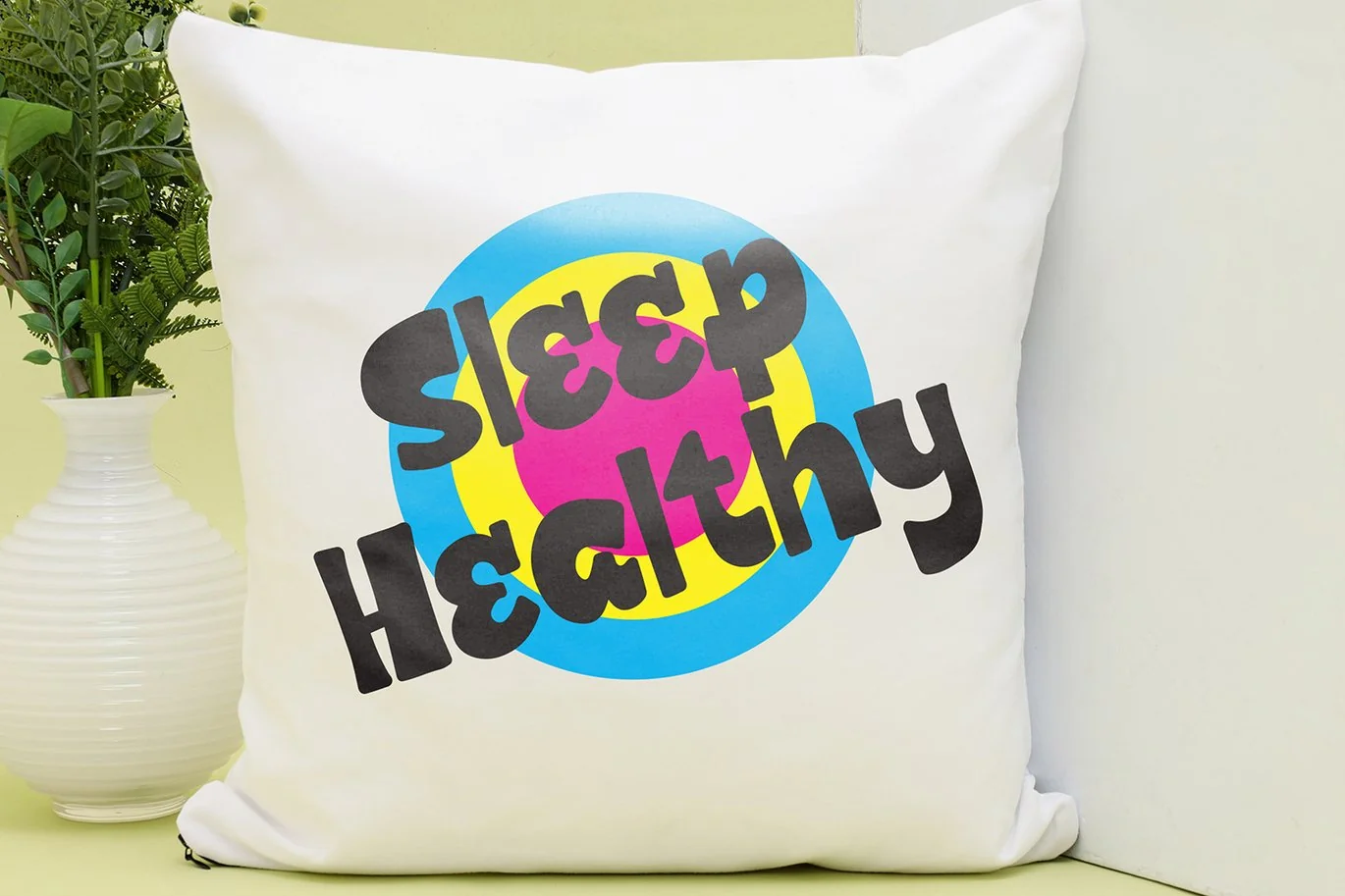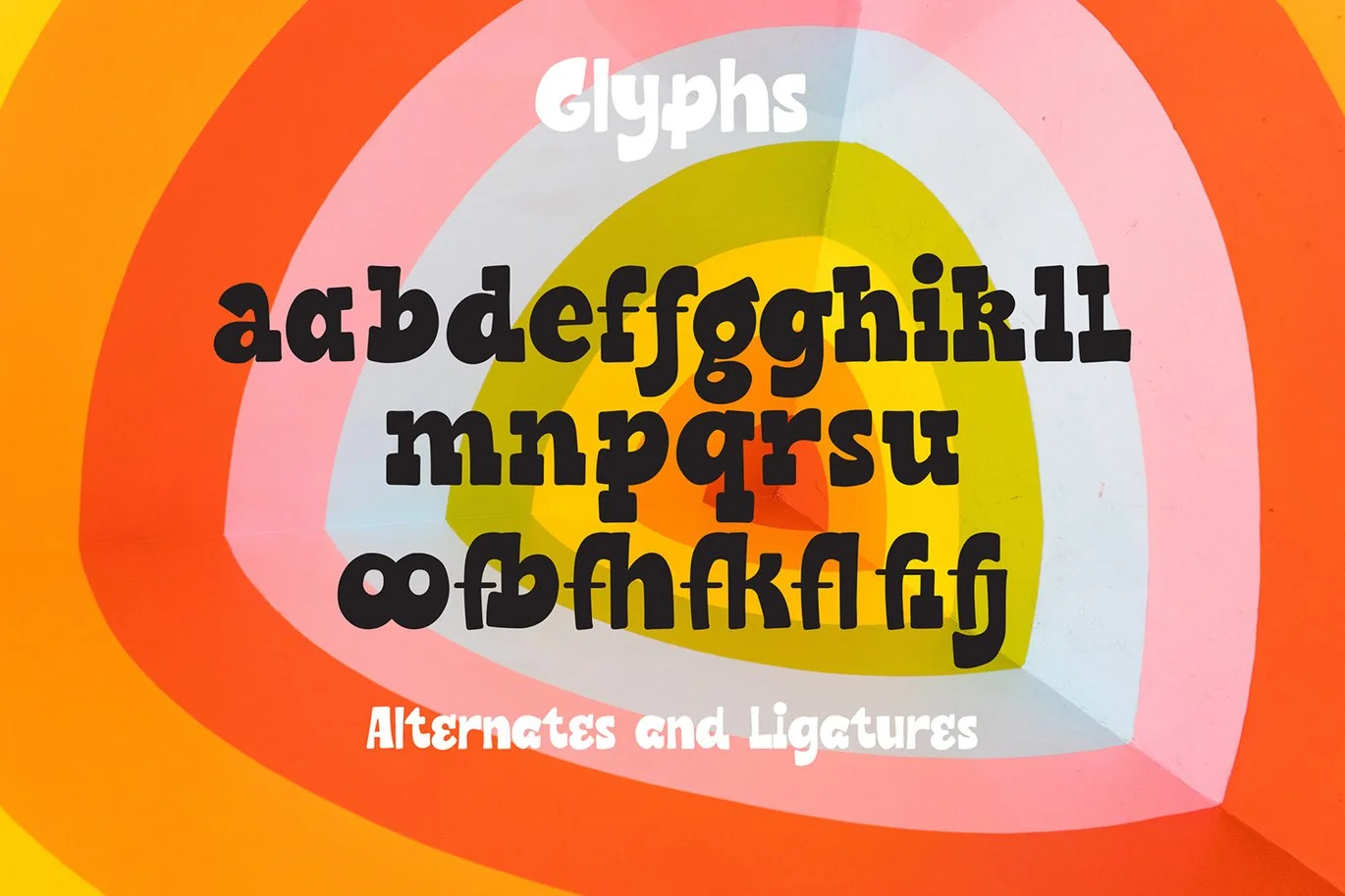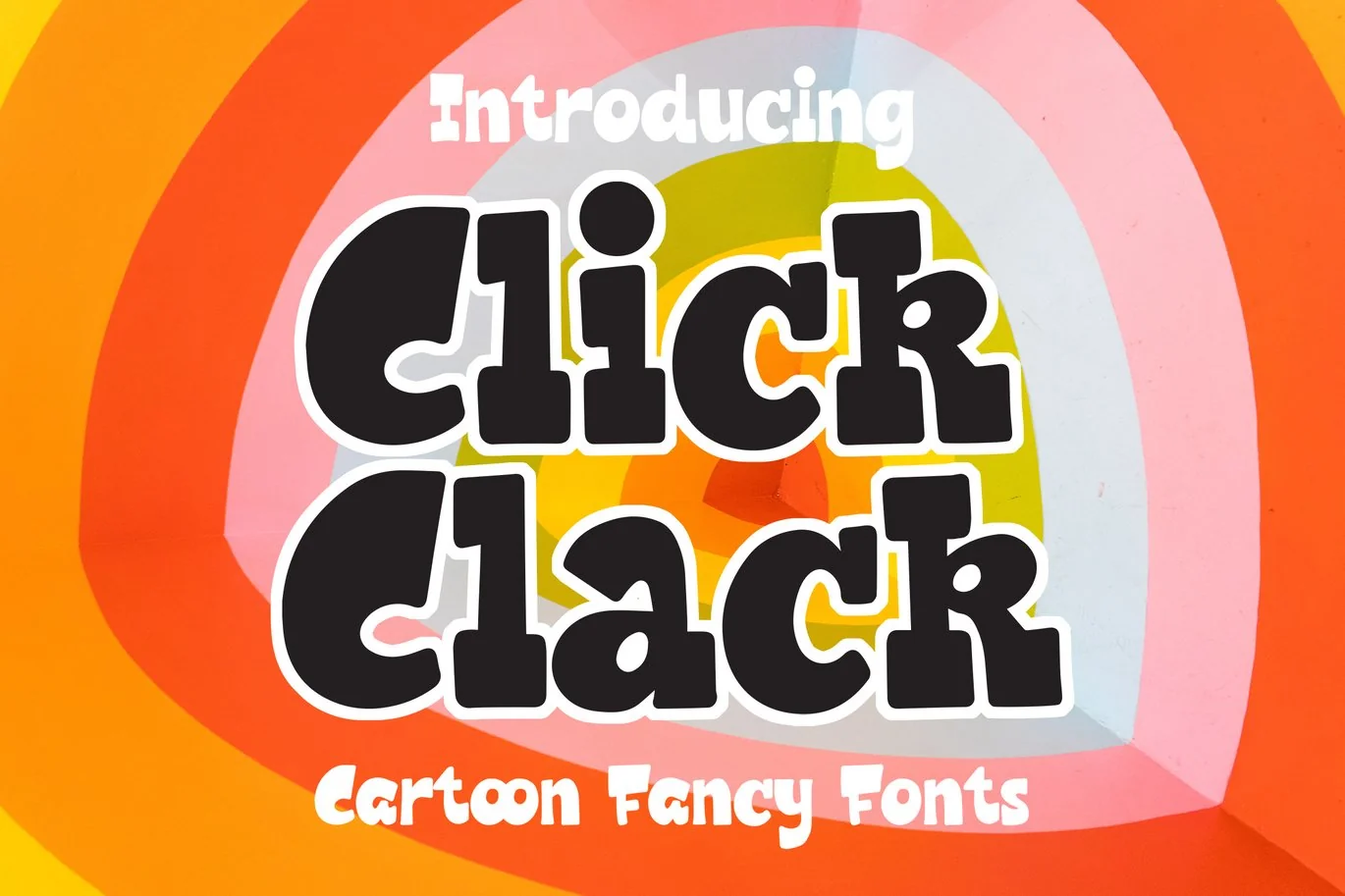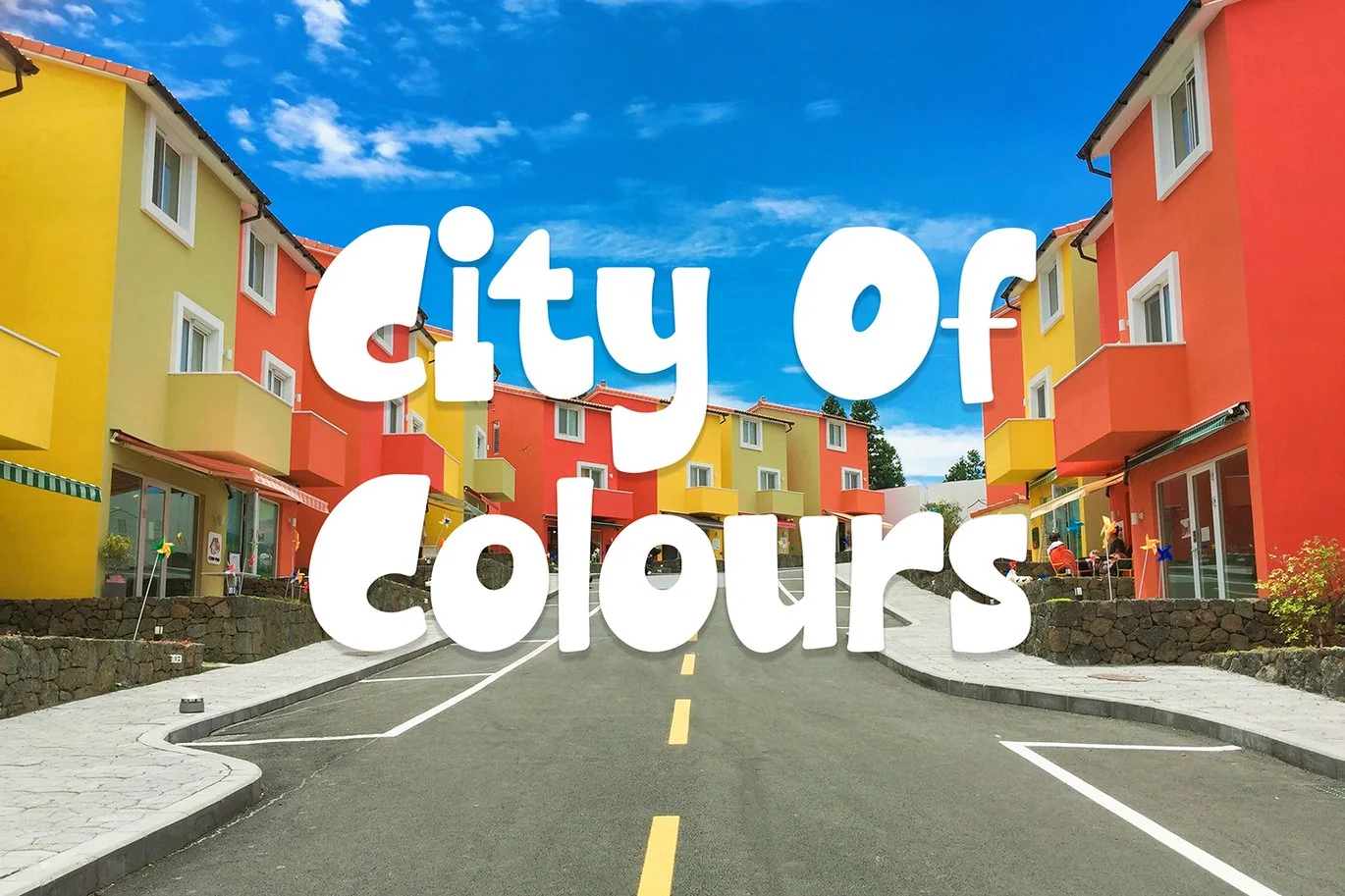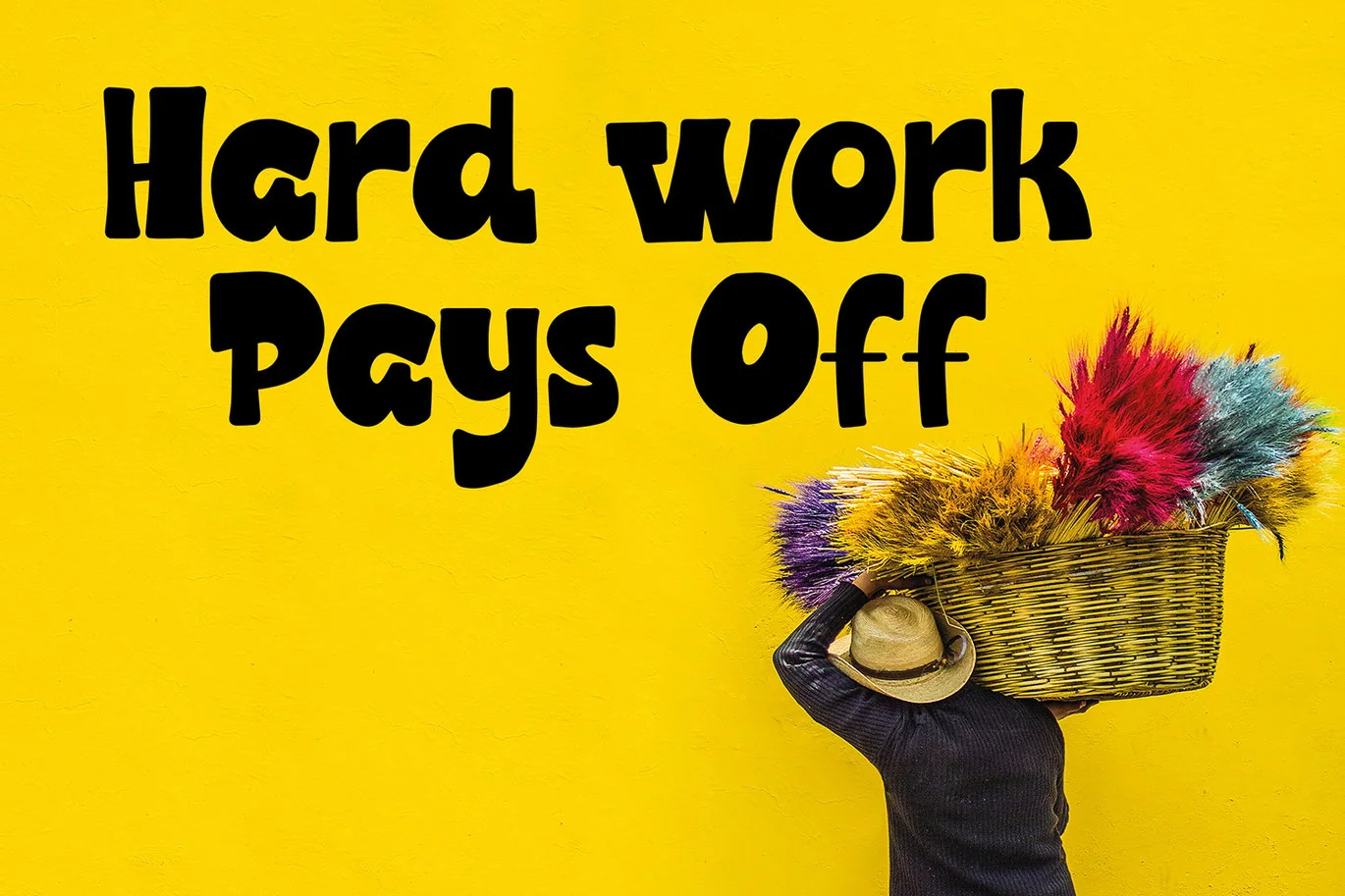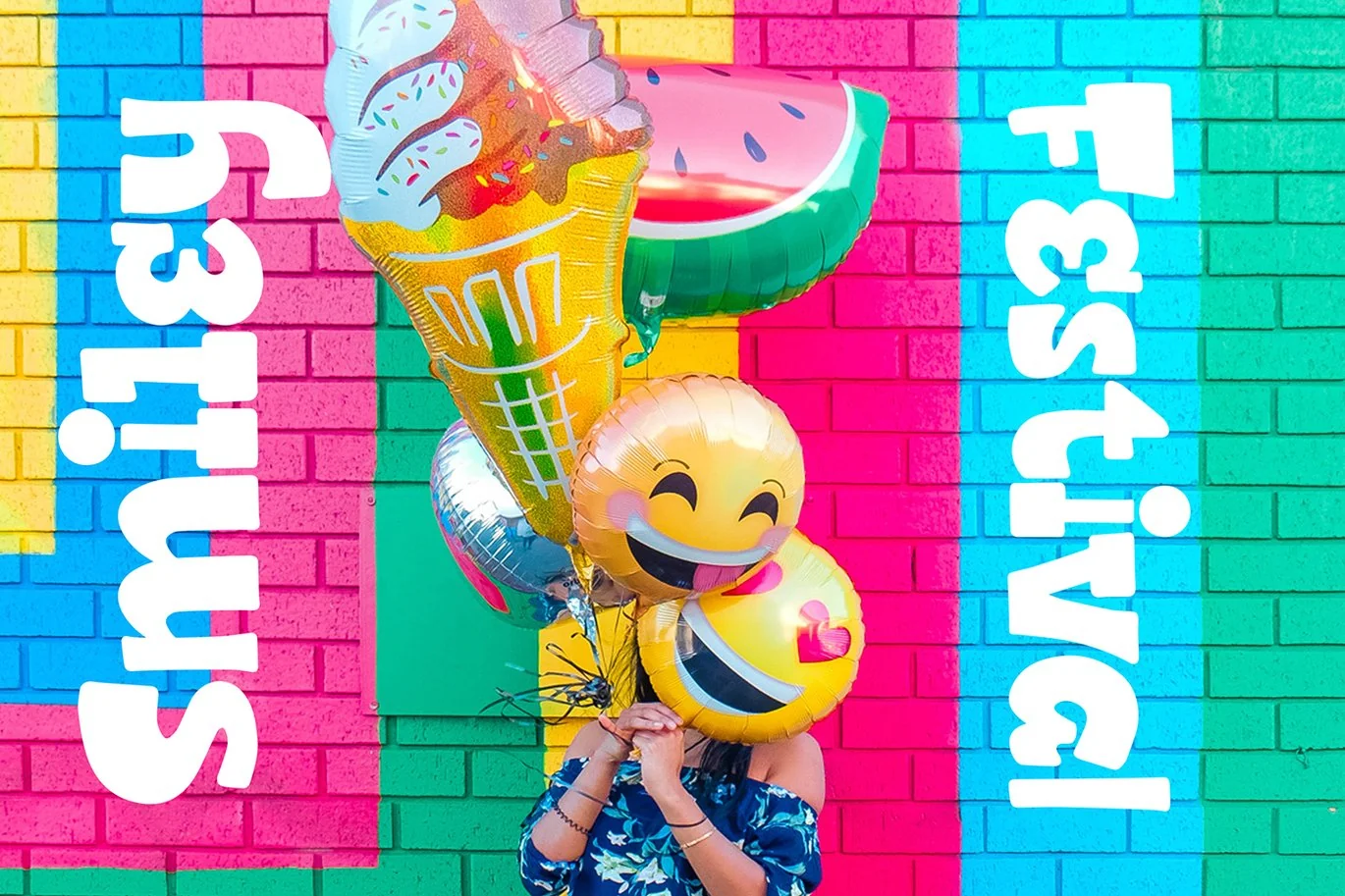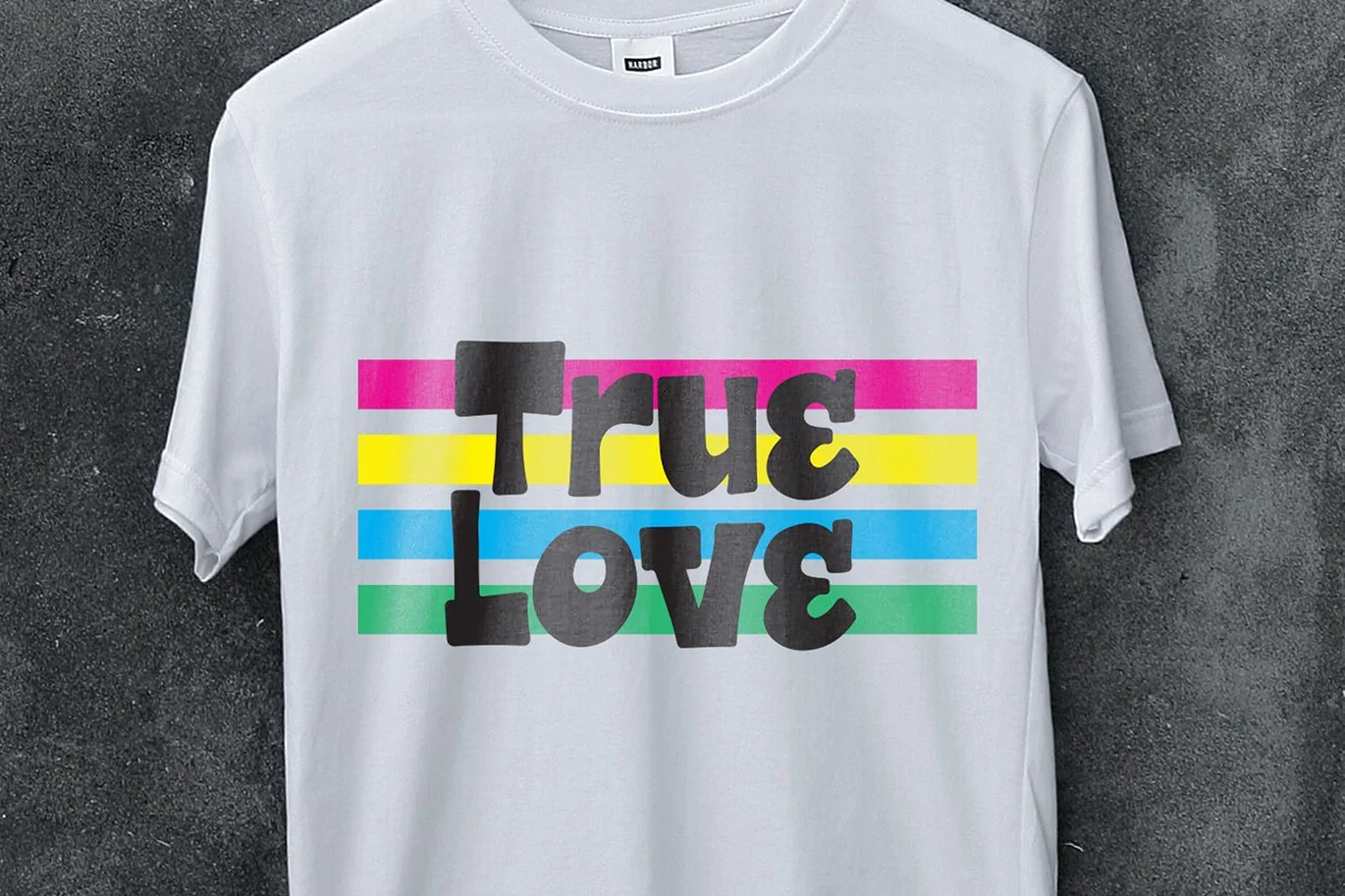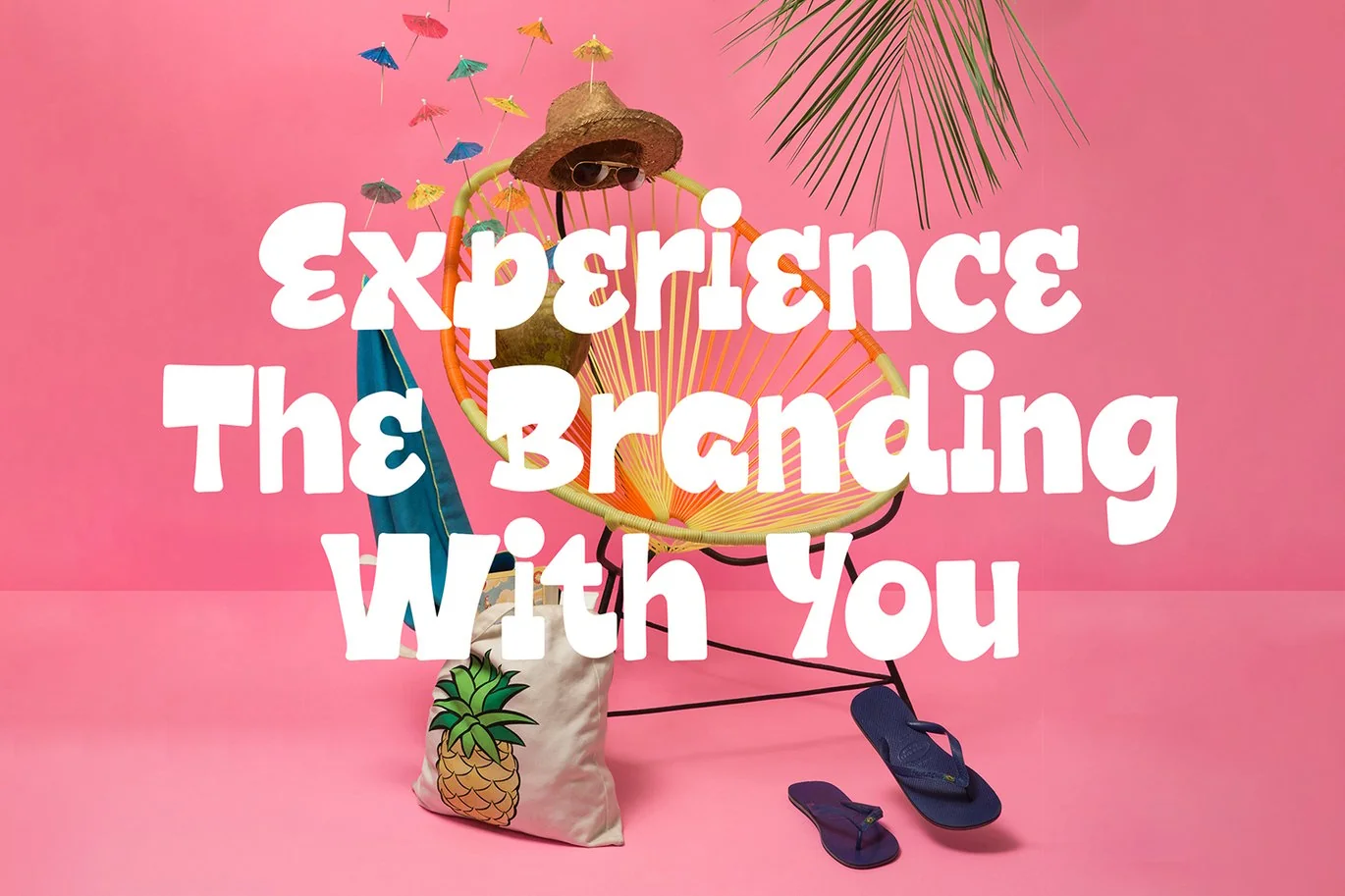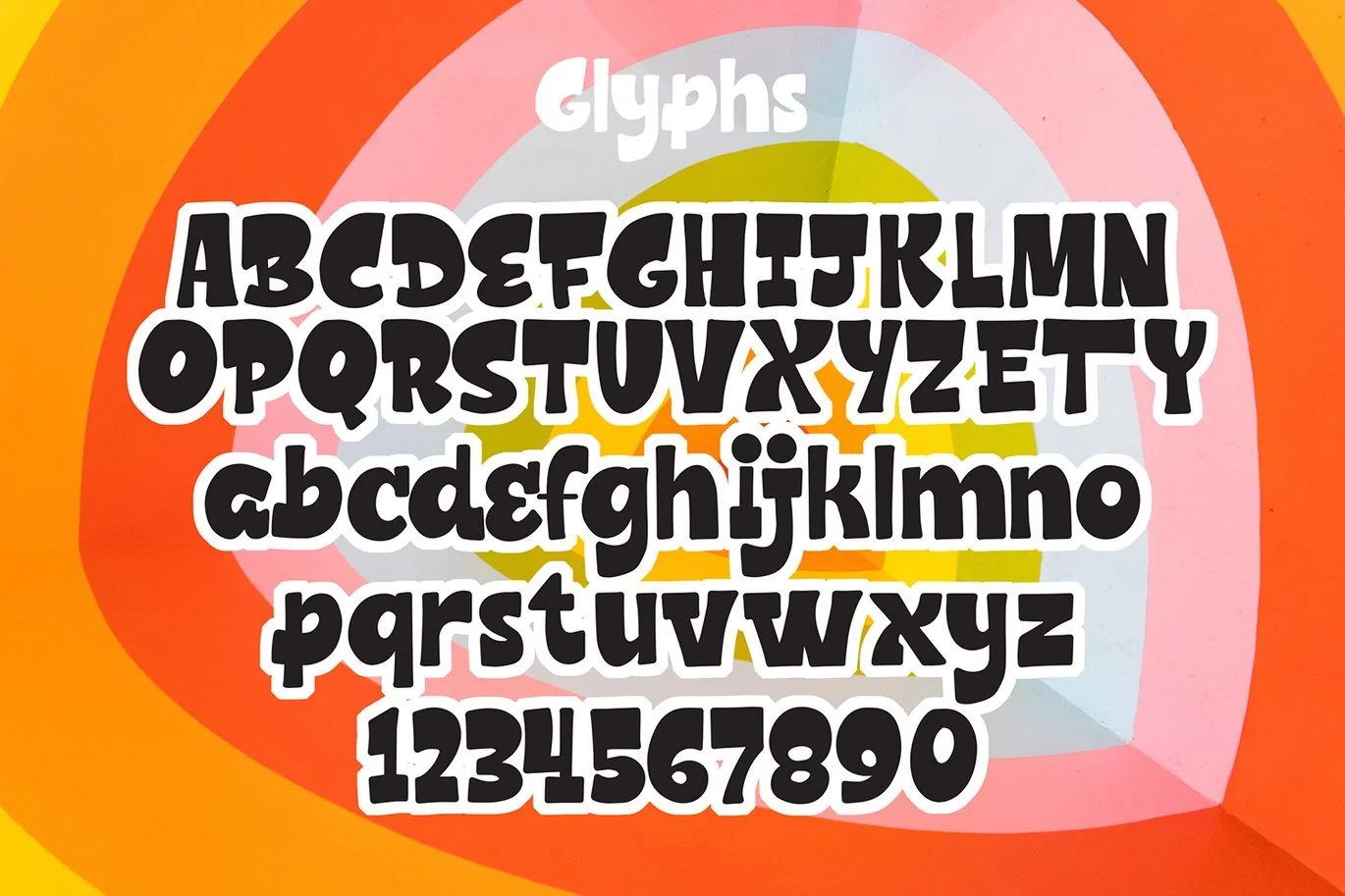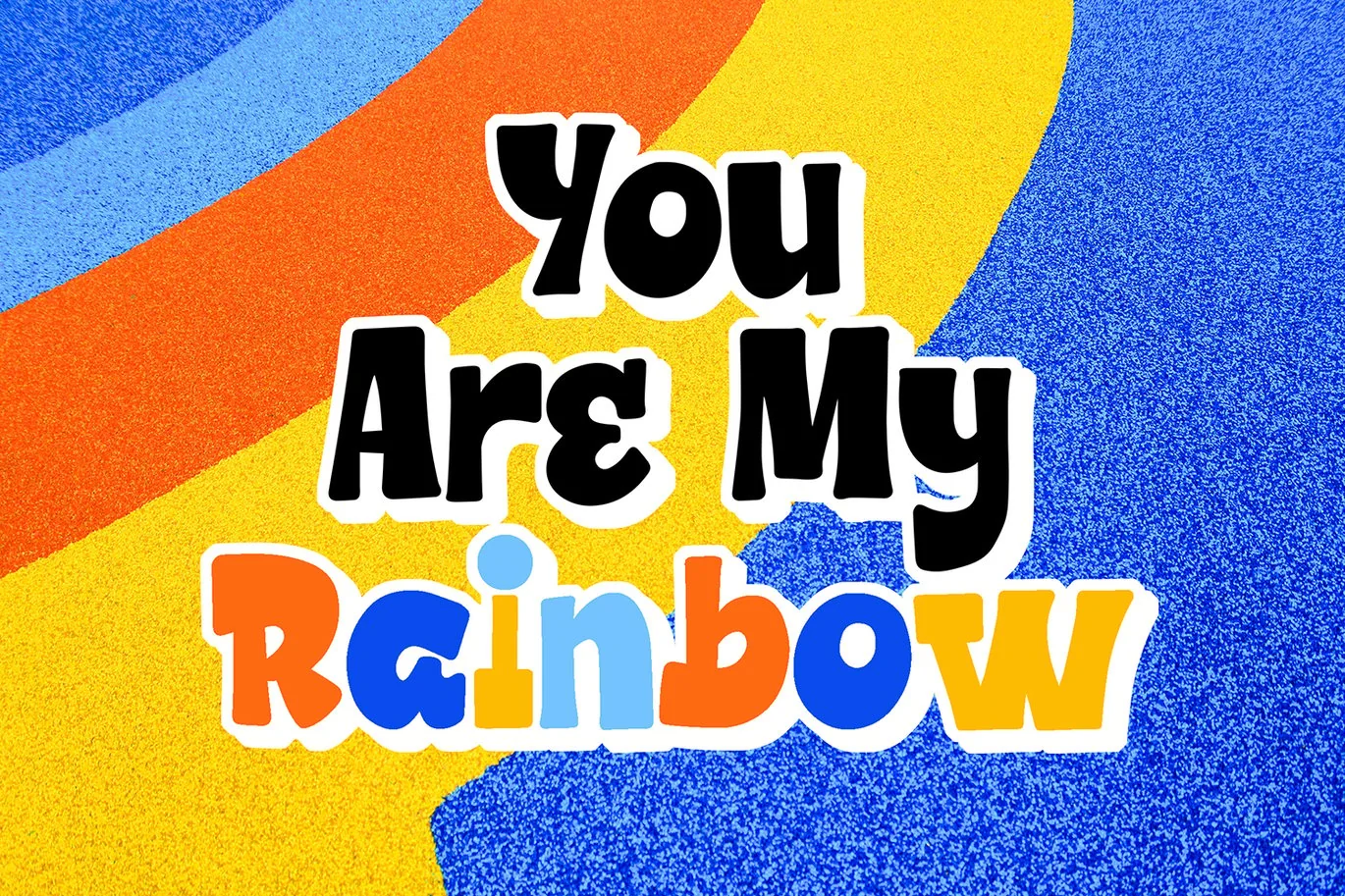
Click Clack – Cartoon Fancy Font
Click Clack – Cartoon Fancy Font contains a lowercase, uppercase, symbol, and also supports multi-language. There’s a lot of ligature in this font. Click Clack – Cartoon Fancy Font also comes with ligatures, stylistic alternates and many more.
this font suitable for fashion, branding, catalog and other design that you want.